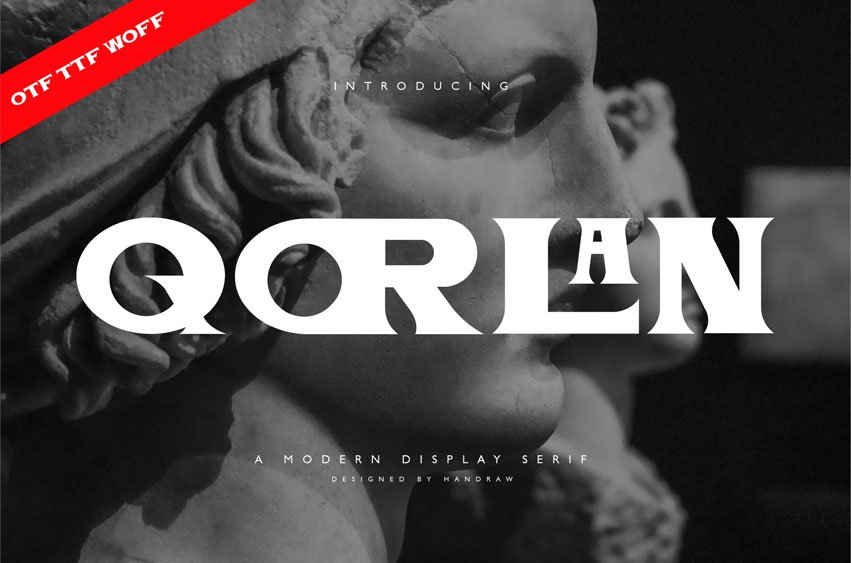
Qorlan Font is a distinguished serif typeface that combines classic sophistication with modern versatility.
Its elegant serifs and well-proportioned letterforms make it ideal for both headings and body text, offering clarity without sacrificing style.